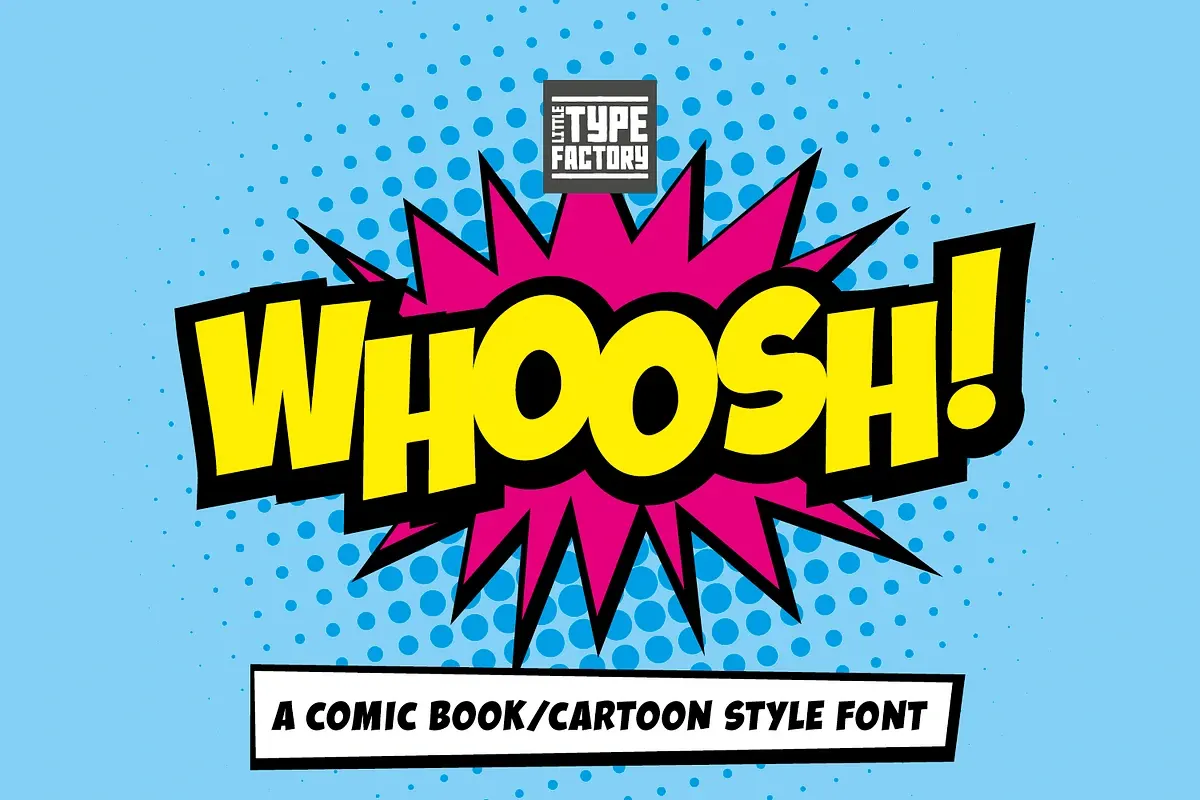
Bring your words to life with the Whoosh! Comic Book/Cartoon Font Free Download — a bold and action-packed typeface made for fun, excitement, and visual impact. Perfect for comic strips, superhero-themed designs, children’s books, game titles, and animated graphics, this font bursts with energy in every letter.
With its exaggerated shapes, dynamic strokes, and cartoonish charm, Whoosh! delivers instant personality to your design work. Whether you're shouting "Pow!" in a comic panel or adding some fun to a playful product label, this font brings the flair you need.